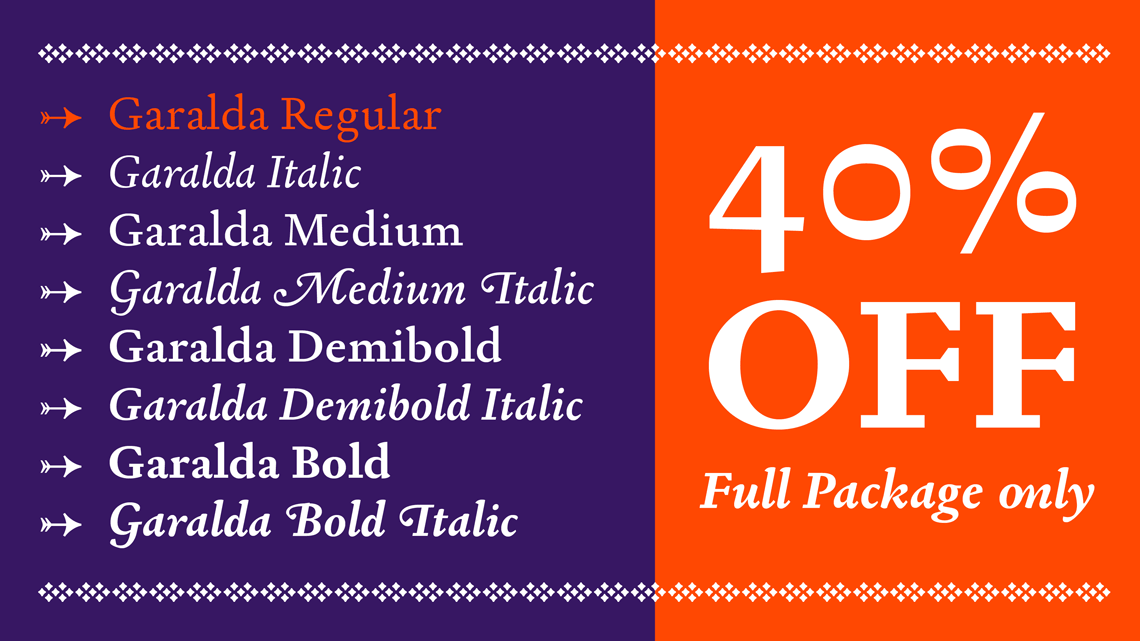
Garalda is a charming family that renews a legacy of finesse designed by Xavier Dupré. Its workaday personality encourages easy long-form reading, but this reinvented Garamond is certainly not basic. Experimentation yielded a contemporary family with heritage. We asked Xavier Dupré a few questions about the design of Garalda, the inspiration and the process, you can read the entire interview here and find out the origin and other details of this typeface.